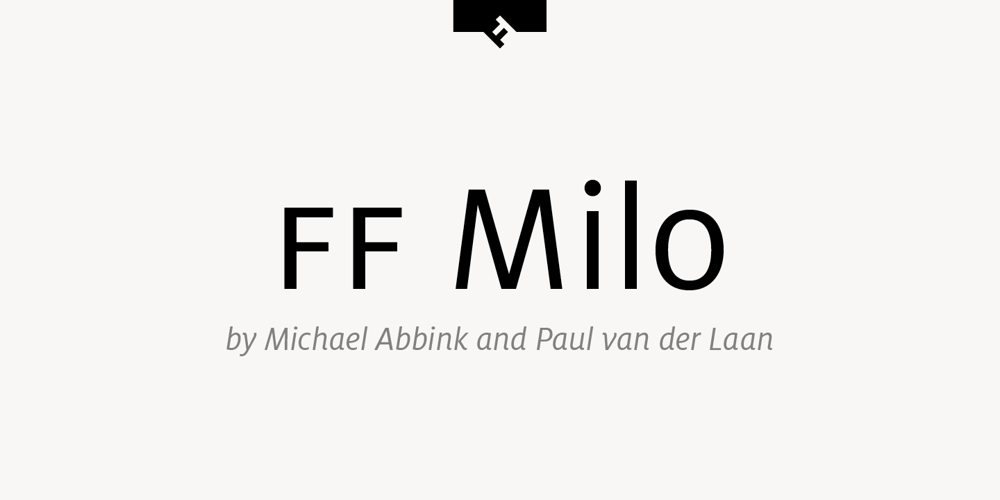
FF Milo Font Family was designed by Paul van der Laan, Michael Abbink and published by FontFont. FF Milo contains 18 styles and family package options. American type designer Michael Abbink created this sans FontFont between 2006 and 2008. The family has 9 weights, ranging from Thin to Black (including italics) and is ideally suited for advertising, packaging, book text, editorial, publishing, logo, branding, small text as well as wayfinding and signage. FF Milo provides advanced typographical support with features such as ligatures, small capitals, alternate characters, case-sensitive forms, fractions, and super- and subscript characters.It comes with a complete range of figure set options – oldstyle and lining figures, each in tabular and proportional widths. In 2011, FF Milo received the Letter.2 award. This FontFont is a member of the FF Milo super family, which also includes FF Milo Serif.